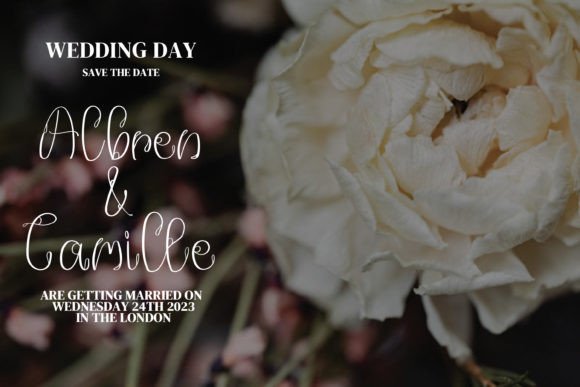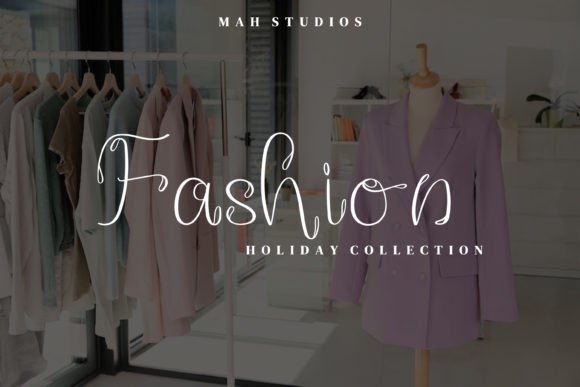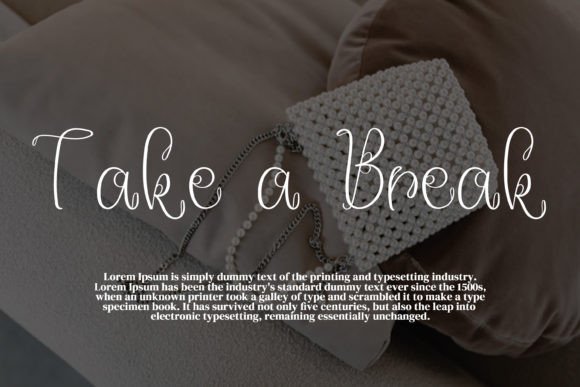
Fary Telling Font – Free Download
Introduction to Fary Telling Font
Fary Telling is a magical script font carefully created with a touch of elegance.
Key Features of Fary Telling Font